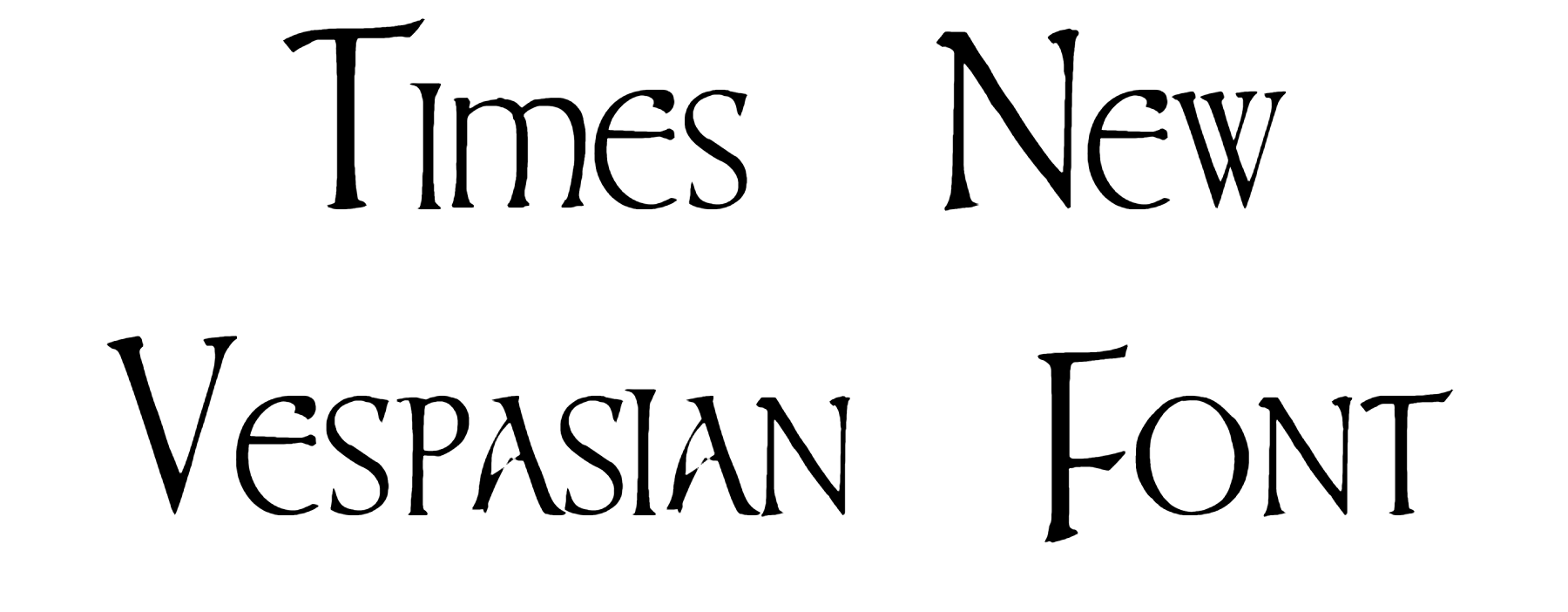
Times New Vespasian
Times New Vespasian is a fancy font made by paulo w. It's a decorative display font with plenty of personality, made to grab attention. It's a free download, and you can try it with your own text in the preview above first.
With complete upper and lowercase letters and all ten digits, Times New Vespasian is ready for real wording, not just a single headline. Punctuation is limited, so look at the character map if you need a specific symbol. It doesn't include accented letters such as é or ñ, which makes it an English-only font.
Designers usually reach for fonts like Times New Vespasian when they're making posters, logos and eye-catching headlines. Use it for one standout word or headline and let simpler fonts handle the rest.
No. Times New Vespasian has no accented letters such as é, ñ or ü, so it's best for English text.